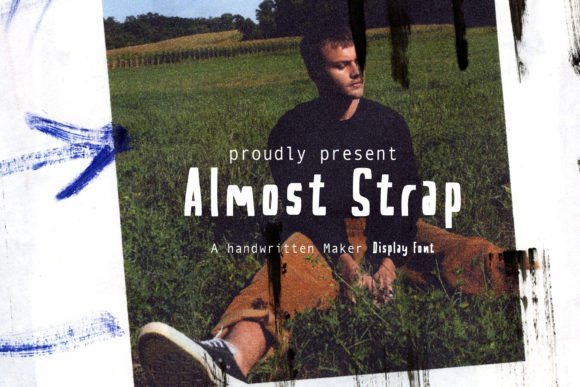
Rediscovering the Charm of Handwritten Art
Do you remember the joy of doodling with markers as a child, watching your colorful strokes bring characters to life? For many of us, that carefree creativity is a cherished memory, one that we’d love to recapture in our design work. This is exactly what inspired the creation of the Almost Strap Font, a beautiful handwriting font that embodies the warmth and nostalgia of handwritings from the past.
Almost Strap Font is a lovingly crafted typeface that combines vintage vibes with modern freshness, making it perfect for designers looking to add a unique touch to their projects. With its charming, marker-inspired style, this font is ideal for greeting cards, invitations, posters, merchandise, and more. Whether you’re aiming to create a captivating vintage impression or a fresh, modern look, the Almost Strap Font is a valuable addition to any designer’s toolkit.
Almost Strap Font Key Features
- Font Family: Almost Strap is a unique, modern sans-serif font designed for digital and print media.
- Unique Characteristics: Almost Strap features a distinctive blend of geometric and organic elements, resulting in a unique aesthetic that sets it apart from more traditional sans-serif fonts.
Almost Strap Font Review
Overall, I was quite impressed with the Almost Strap Font. It has a unique, modern aesthetic that can add a touch of sophistication to any design project.
- ✨ Unique letterforms: The Almost Strap Font features distinctive, hand-drawn letterforms that give it a personal touch.
- ✨ Versatile: This font is suitable for a wide range of applications, from logos and branding to body text and display headings.
- ✨ Easy to read: Despite its unique design, the Almost Strap Font is surprisingly easy to read, making it a great choice for digital and print projects.
- ⚠️ Limited language support: The Almost Strap Font may not include support for all languages, which could be a limitation for international projects.
- ⚠️ Not ideal for very small text sizes: The font’s unique design may not hold up well at very small text sizes, which could make it difficult to read.
Overall, I would recommend the Almost Strap Font for designers looking for a unique and versatile font. While it has some limitations, its unique aesthetic and ease of use make it a great choice for a wide range of projects.
For best results, use the Almost Strap Font in a bold weight to emphasize text and create a striking visual effect.
Use the Almost Strap Font to create bold headings and titles that add visual interest to your design.
Use the Almost Strap Font to create eye-catching headings and titles that add visual appeal to your presentation or document.
Some common use cases for the Almost Strap Font include:
- Headings and titles in magazines, newspapers, and online publications.
- Logos and branding materials for companies
Alternatives to Almost Strap Font
Playfair Display is an elegant and luxurious serif font, ideal for high-end branding and advertising. Its unique design features intricate flourishes and ornaments, making it perfect for creating a sense of sophistication and refinement. Unlike Almost Strap Font, Playfair Display has a more classical and traditional feel, with a wider range of weights and styles available.
Cream Soda is a vintage-inspired script font, suitable for creating a warm and inviting atmosphere. Its cursive design and soft, rounded edges evoke a sense of nostalgia and playfulness, making it ideal for branding, packaging, and advertising. Compared to Almost Strap Font, Cream Soda has a more casual and laid-back feel, with a focus on hand-drawn, handwritten textures.